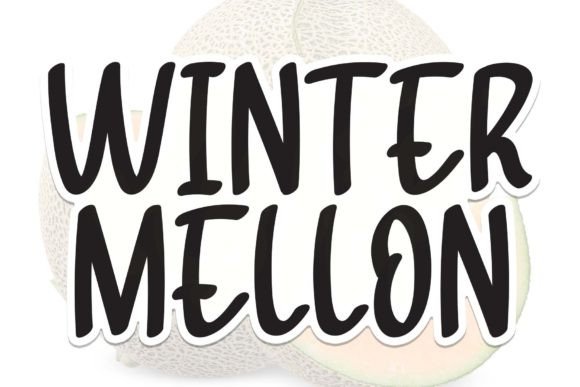
Step into an enchanting world of expression with the Winter Melon Font, a script-style masterpiece crafted by the talented William Jhordey. This sweet and friendly handwritten font possesses an irresistible charm that will transform your creative visions into captivating realities.
With its elegant curves and playful strokes, the Winter Melon Font dances across the page, adding a touch of whimsy and delight to any project it graces. Its versatility knows no bounds, making it the perfect companion for a wide range of design endeavors.
Imagine the magic you can create with the Winter Melon Font:
• Wedding Invitations: Let the Winter Melon Font carry the message of your love story with grace and elegance. Its soft, flowing lines will add a touch of romance to your wedding invitations, making them a cherished keepsake for years to come.
• Greeting Cards: Spread joy and warmth with greeting cards adorned with the Winter Melon Font. Its playful personality will bring a smile to the faces of your loved ones, making every occasion extra special.
• Posters and Flyers: Capture attention and create a lasting impression with posters and flyers that feature the Winter Melon Font. Its unique charm will draw eyes and ensure your message is remembered.
• Branding and Logos: Infuse your brand with a touch of playfulness and creativity with the Winter Melon Font. Its cheerful strokes will add a personal touch to your logo, making it stand out from the crowd and resonate with your audience.
• Social Media Graphics: Create captivating social media graphics that engage your audience and leave a lasting impression. The Winter Melon Font will add a touch of charm and personality to your posts, making them irresistible to scroll past.
The Winter Melon Font is more than just a collection of letters; it's an invitation to unleash your creativity and embark on a journey of self-expression. With its sweet and friendly demeanor, this font will transform your design projects into heartwarming works of art.
So why settle for ordinary when you can embrace the extraordinary? Embrace the Winter Melon Font today and let your imagination run wild!